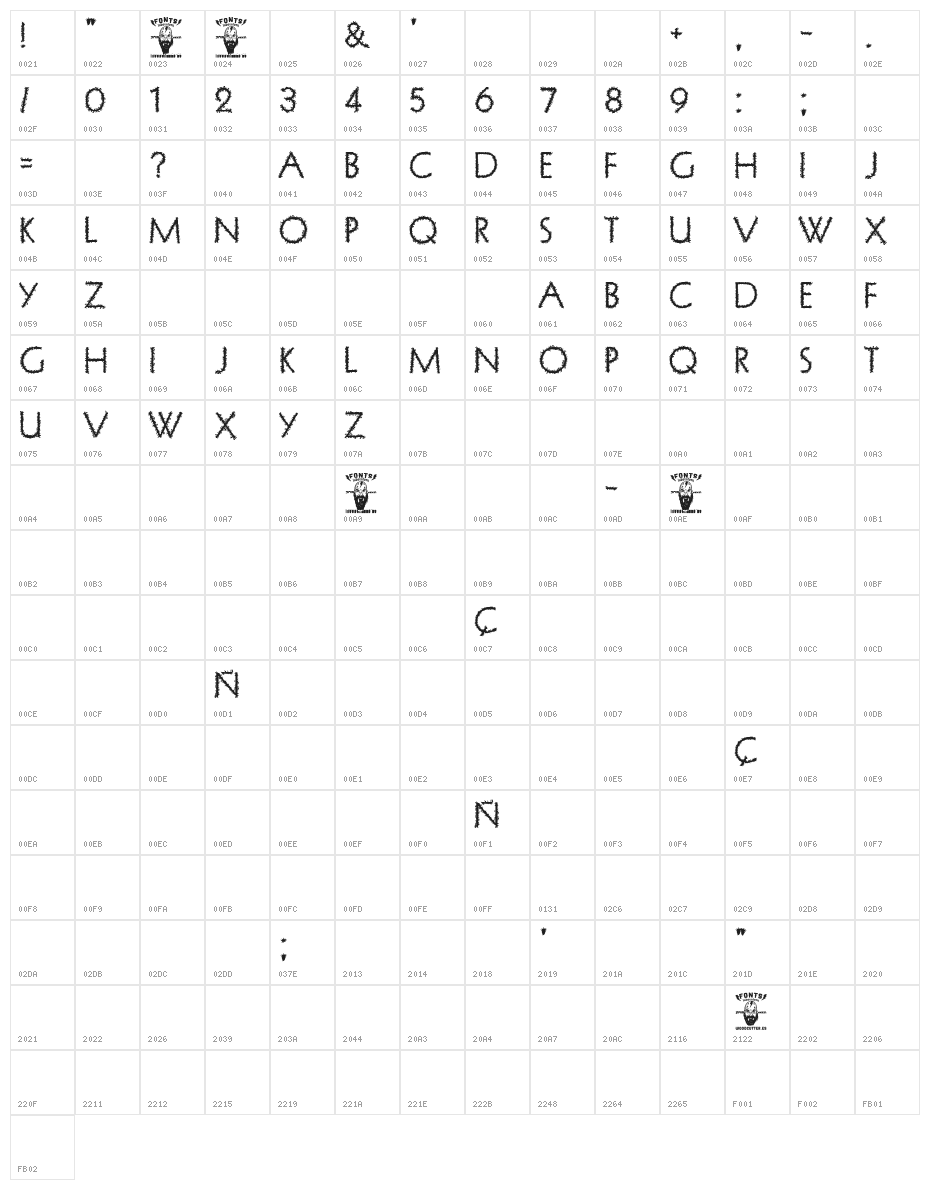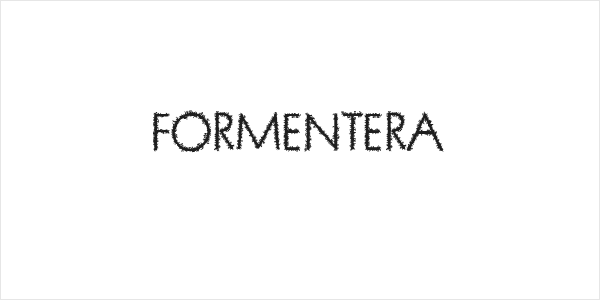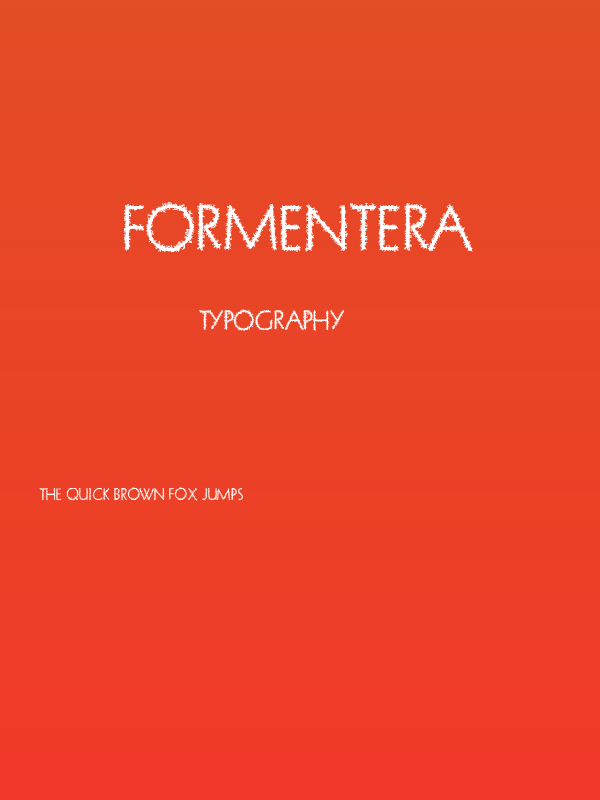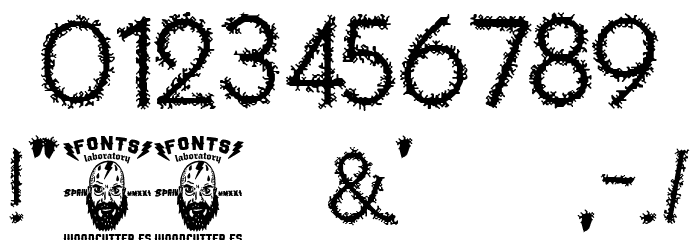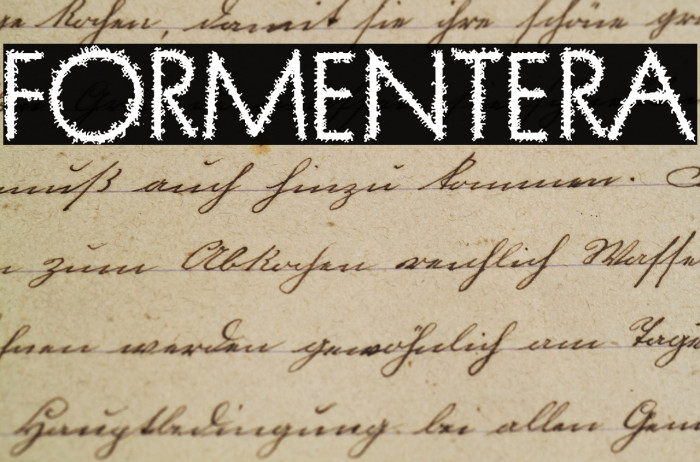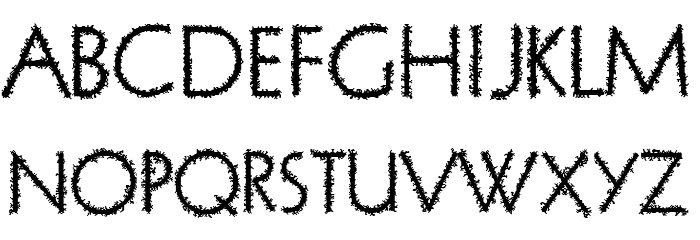
Formentera Font
Formentera Description
This font features a unique, textured design that resembles a hand-drawn or sketch-like appearance. The characters are bold and slightly irregular, giving them a dynamic and energetic feel. The uppercase and lowercase letters maintain a consistent style, with jagged edges that add to the font's distinctive look. Numbers and special characters are also included, following the same textured pattern. This font is ideal for projects that require a creative and unconventional touch, making it perfect for artistic or informal designs.
| Proposed Projects | Ideal for artistic projects, informal designs, posters, and creative branding. |